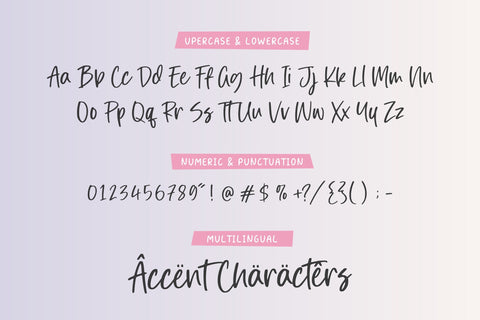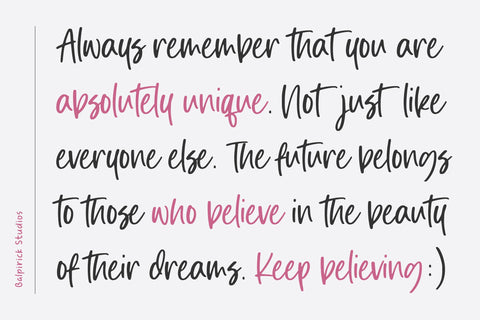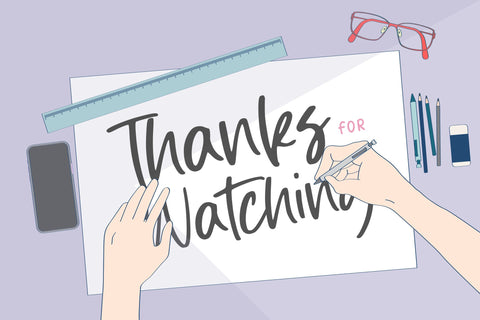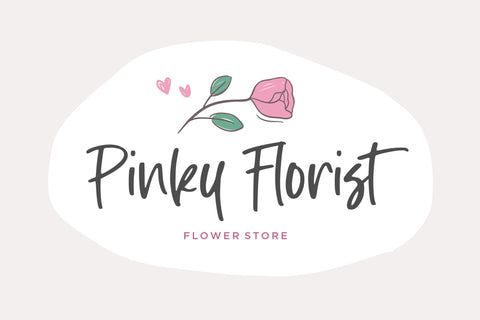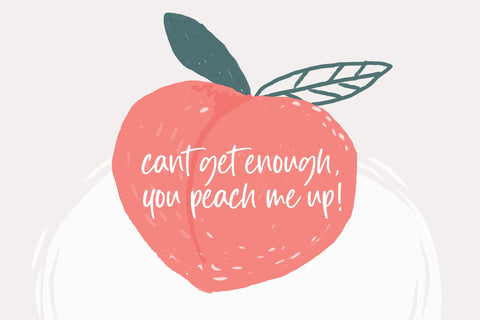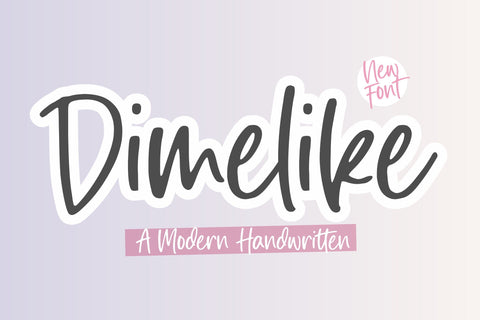
Dimelike Modern Handwritten Font
Proudly Present, Dimelike Font.
Dimelike is a Modern Handwritten Font.
Dimelike feels equally charming and elegant. It looks stunning on wedding invitations, thank you cards, quotes, greeting cards, logos, business cards and every other design which needs a customized touch.